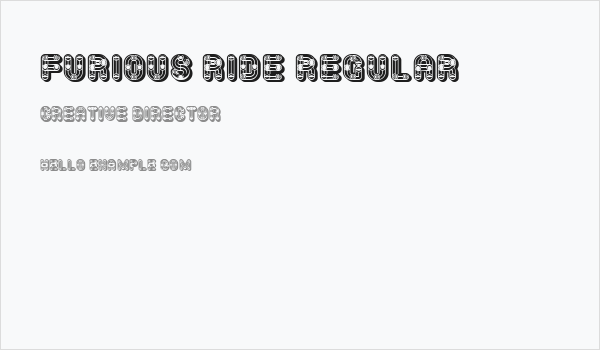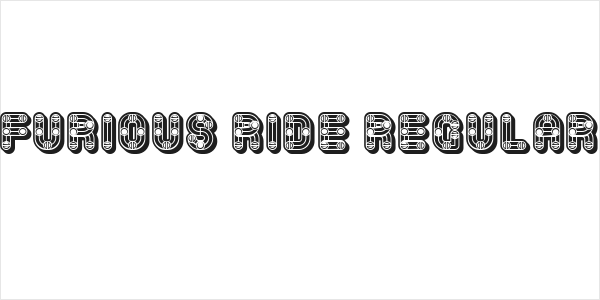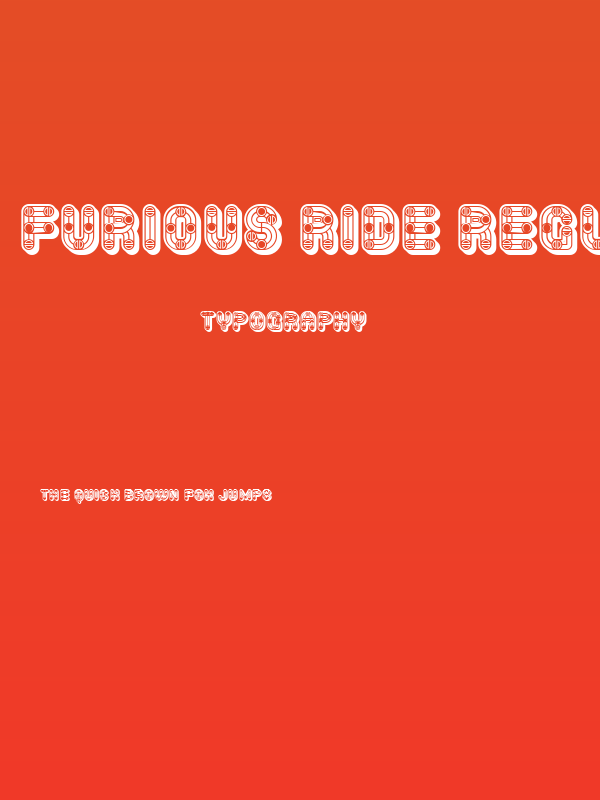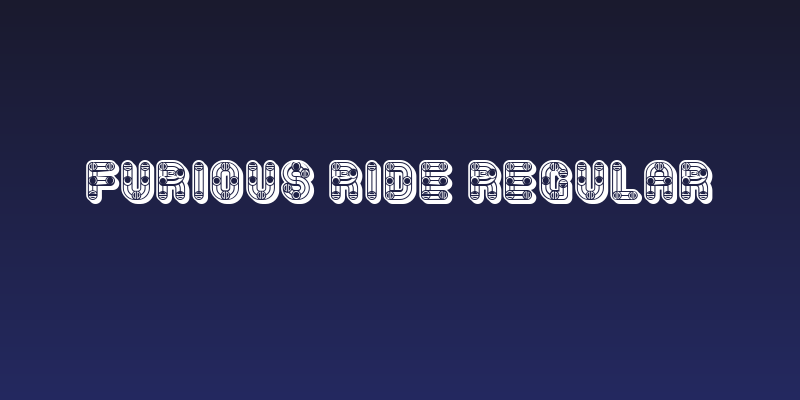
Furious Ride Regular Font
Furious Ride Regular Description
This font features a bold and dynamic design with a distinct mechanical and industrial aesthetic. Each character is constructed with intricate line patterns and geometric shapes, creating a sense of movement and energy. The letters are outlined with a thick border, enhancing their visibility and impact. The style is reminiscent of circuit boards or machinery, making it ideal for projects that require a futuristic or technological feel. The font's unique design elements make it stand out, ensuring that any text set in this typeface will capture attention.
| Overall Style | Modern, Futuristic |
| Proposed Projects | Ideal for technology-themed posters, video game titles, branding for tech companies, and futuristic designs. |